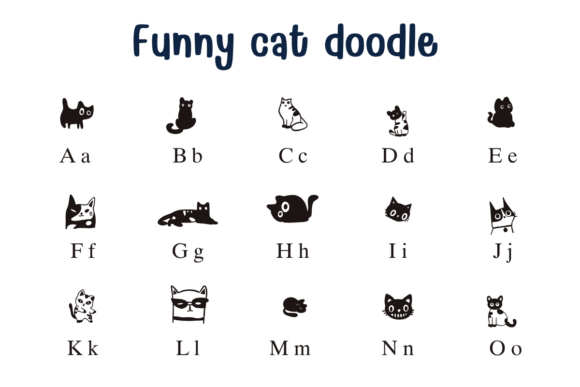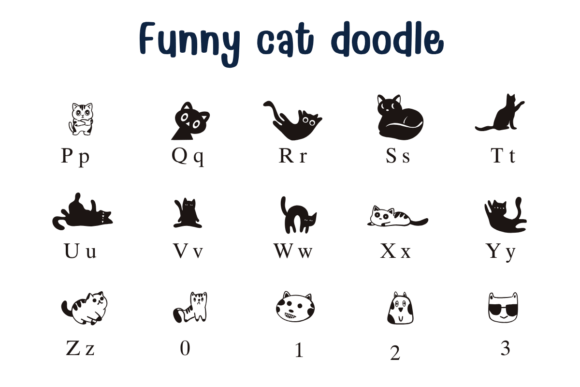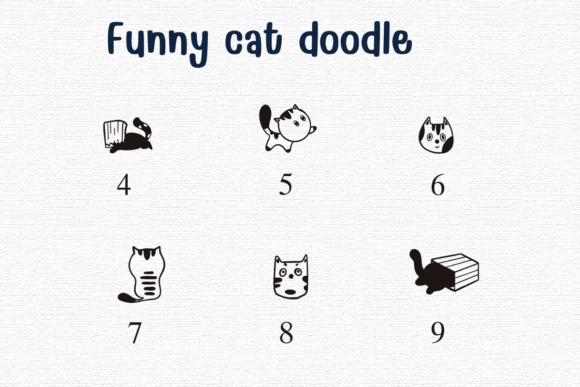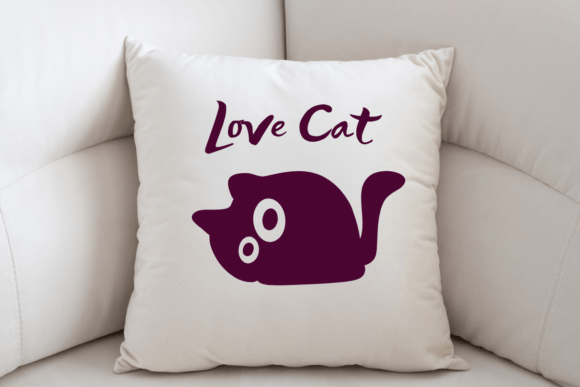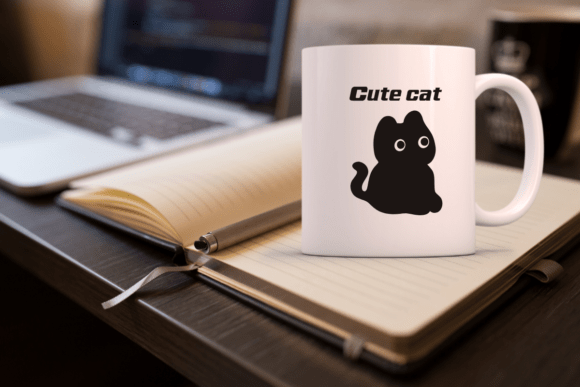
Introducing the Funny Cat Doodle Font: A Playful Addition to Your Design Toolkit
Are you a designer, crafter, or simply a cat lover looking for a unique and playful font to add some whimsy to your projects? Look no further than the Funny Cat Doodle Font! This delightful font is perfect for creating eye-catching designs, from coloring pages to greeting cards, and is sure to bring a smile to anyone’s face.
What is the Funny Cat Doodle Font?
The Funny Cat Doodle Font is a charming collection of cat-themed doodles, carefully crafted to bring a touch of humor and personality to your designs. This font is not just a simple collection of characters, but a comprehensive set of illustrations that can be used to create a wide range of designs, from simple icons to complex illustrations.
• Funny Cat Doodles: A collection of adorable cat illustrations, perfect for adding a touch of humor to your designs.
• Coloring Outline: A special outline version of the font, designed specifically for coloring pages and illustrations.
• Dingbats Doodle Cartoon: A set of cartoon-style doodles, perfect for creating playful and eye-catching designs.
Use Cases
The Funny Cat Doodle Font is perfect for a wide range of design projects, including:
• Coloring Pages: Create fun and interactive coloring pages for kids, using the coloring outline version of the font.
• Greeting Cards: Add a touch of personality to your greeting cards, using the funny cat doodles to create eye-catching designs.
• Illustrations: Use the dingbats doodle cartoon illustrations to create complex and playful illustrations.
• Social Media Graphics: Add a touch of humor to your social media graphics, using the funny cat doodles to create engaging and shareable content.
The Funny Cat Doodle Font offers a range of benefits for designers and crafters, including:
• Unique and Playful Designs: Create eye-catching designs that stand out from the crowd, using the funny cat doodles to add a touch of personality.
The Funny Cat Doodle Font is a playful and versatile addition to any design toolkit. With its range of formats, technical features, and use cases, it’s perfect for designers, crafters, and cat lovers alike. So why not add some whimsy to your designs, and give the Funny Cat Doodle Font a try today?